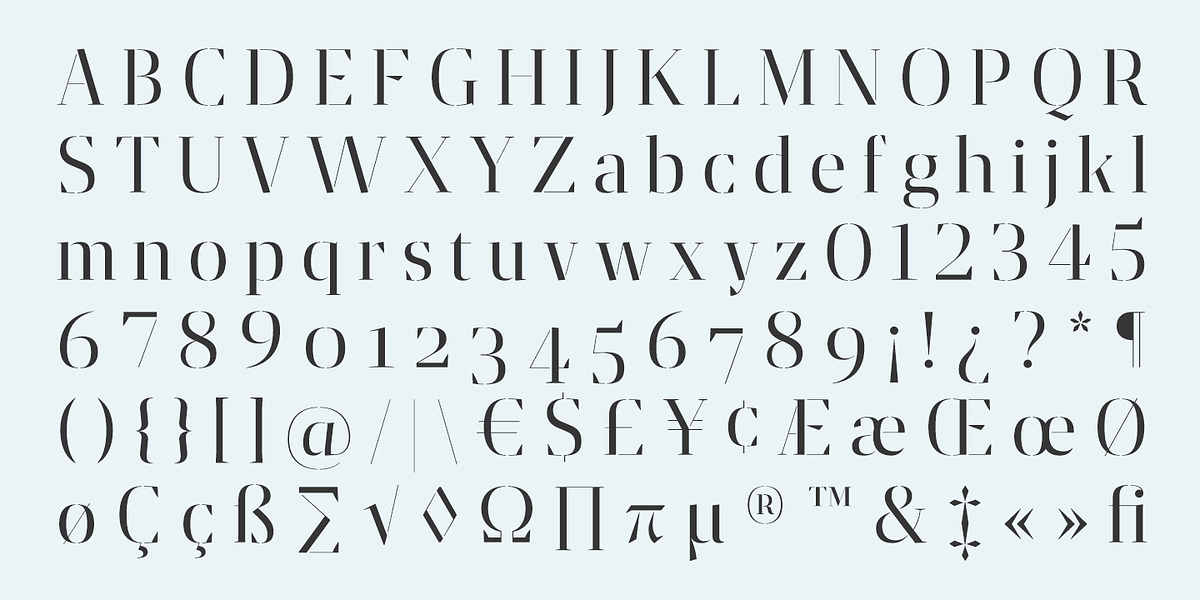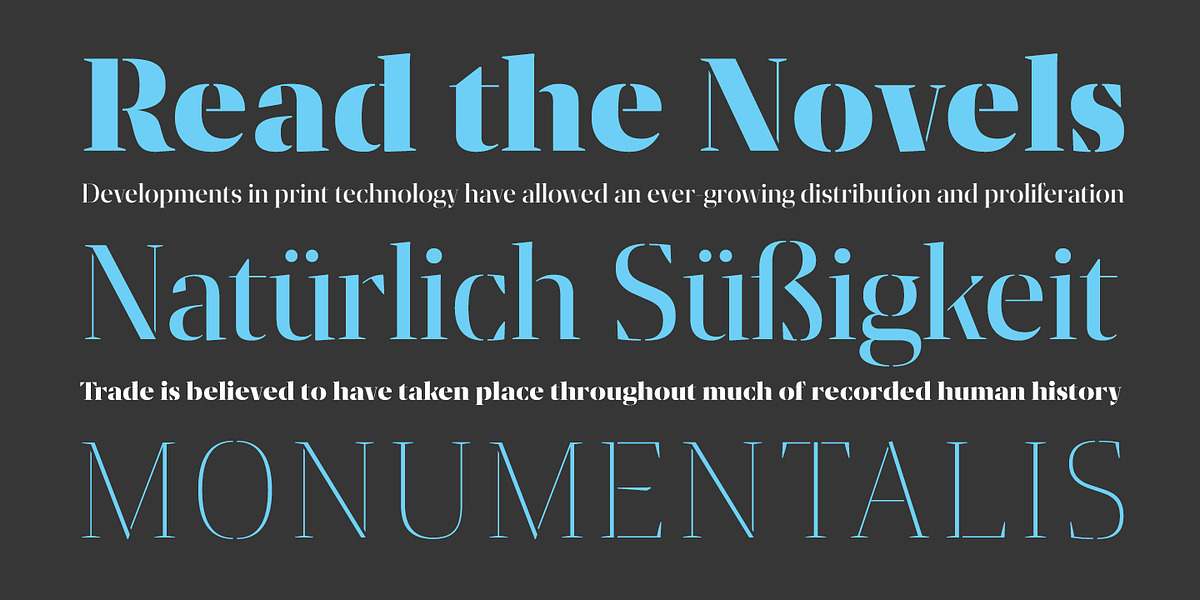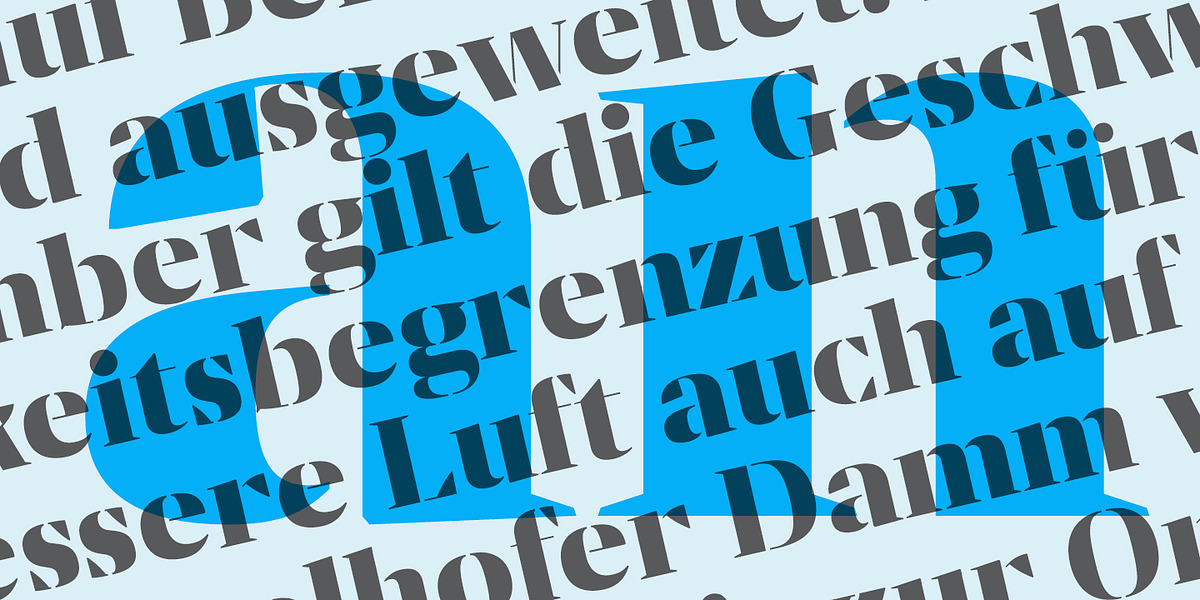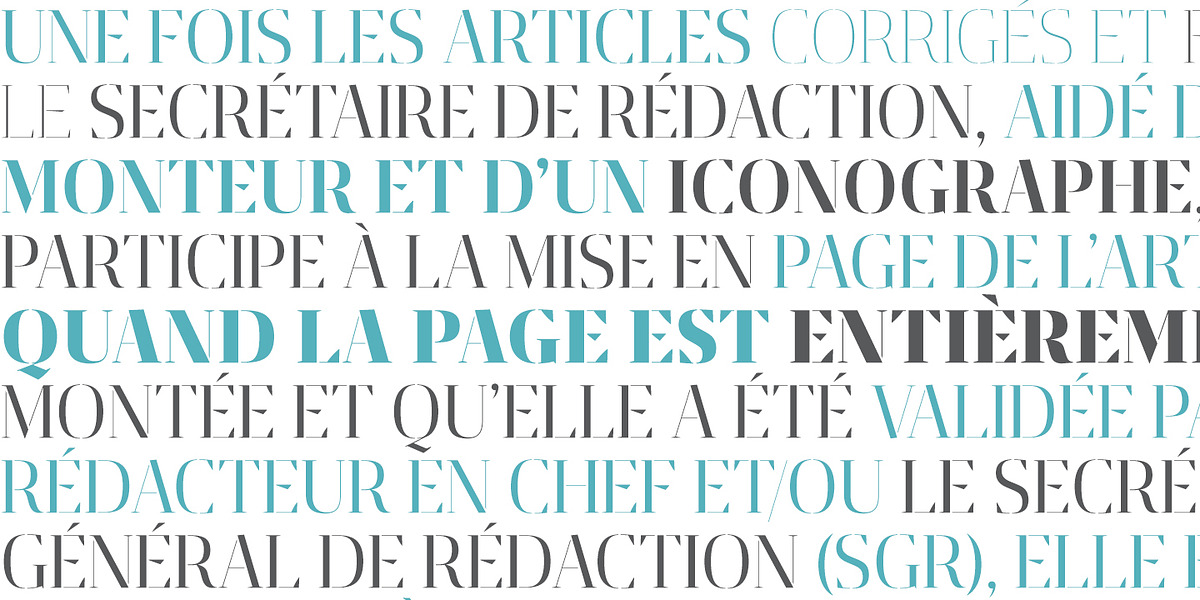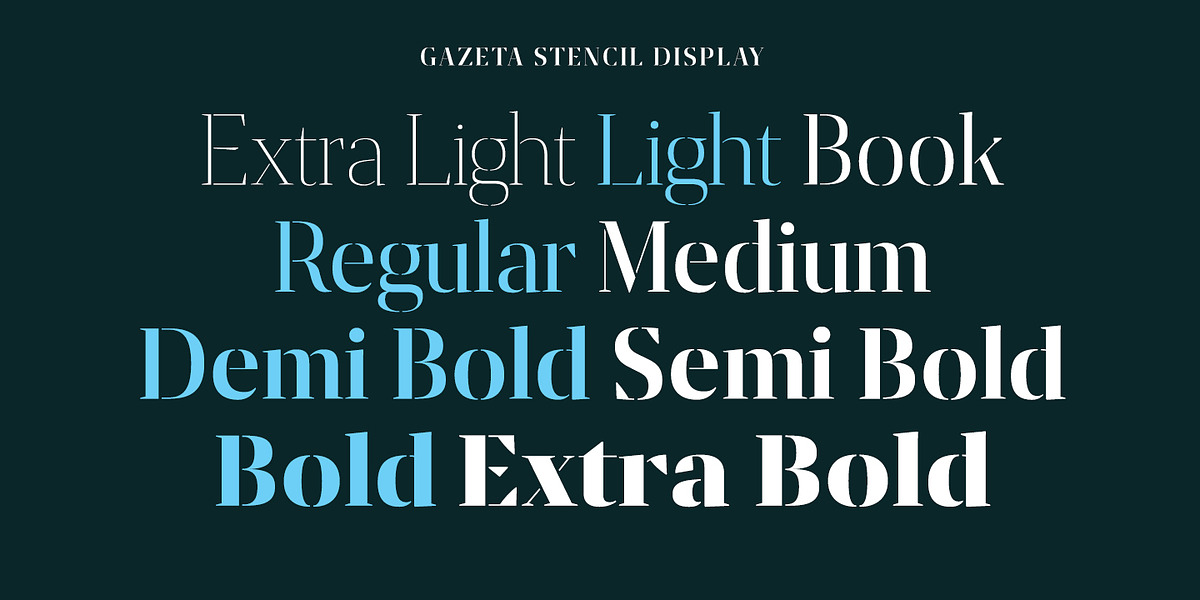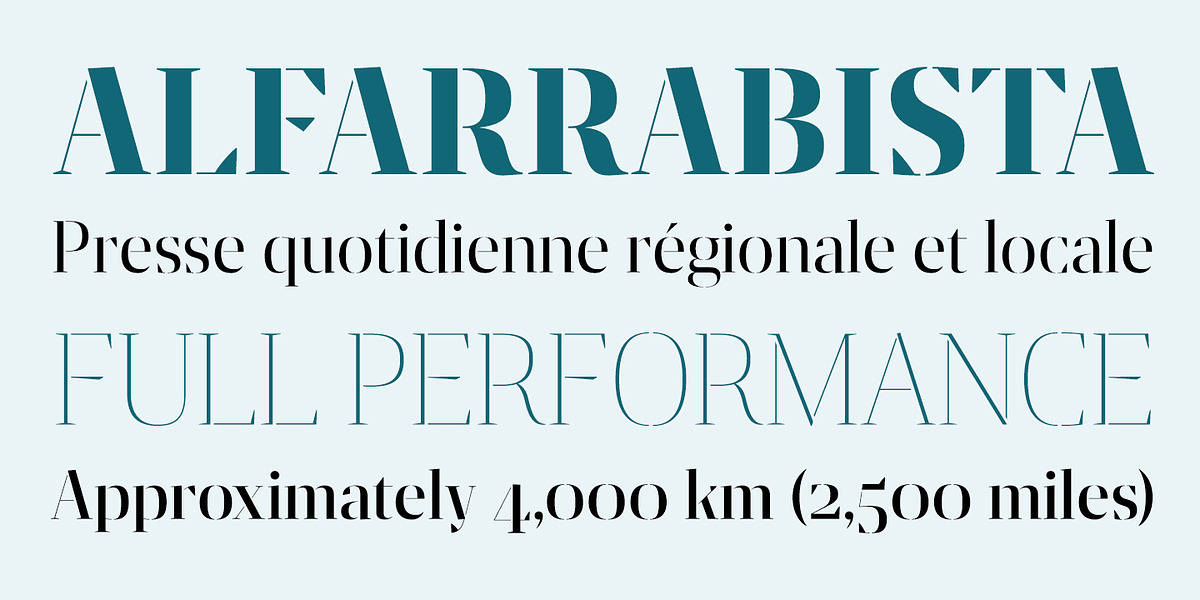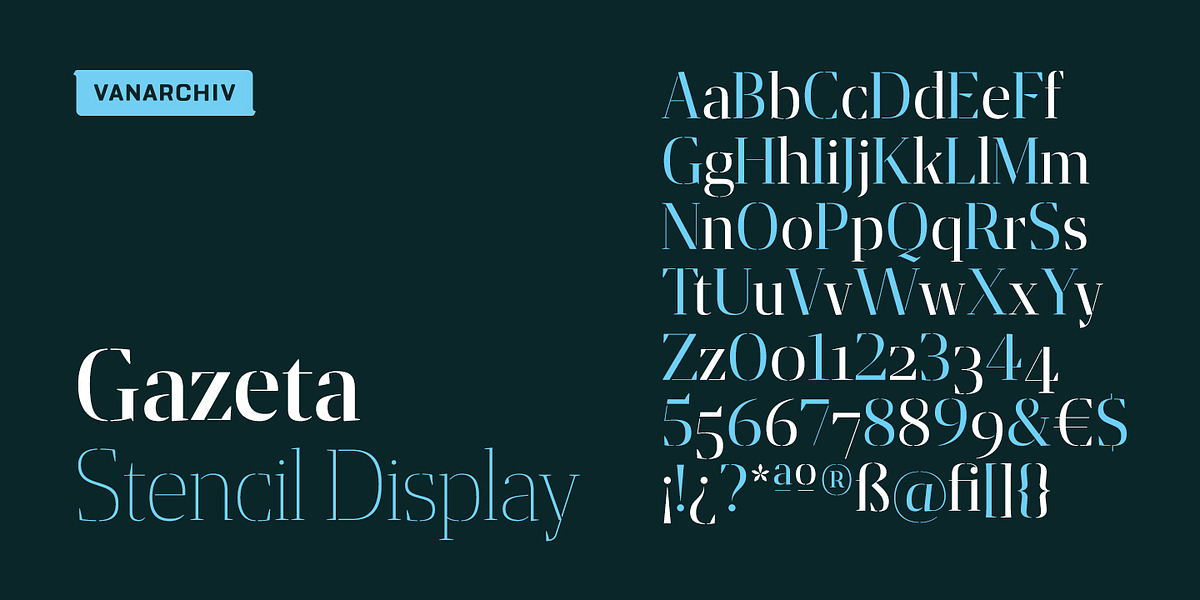
Gazeta Stencil Display
This stencil serif typeface is a bold and industrial option. Its mechanical letterforms are derived from the Gazeta font family but possess a unique structure. Only roman characters are available.